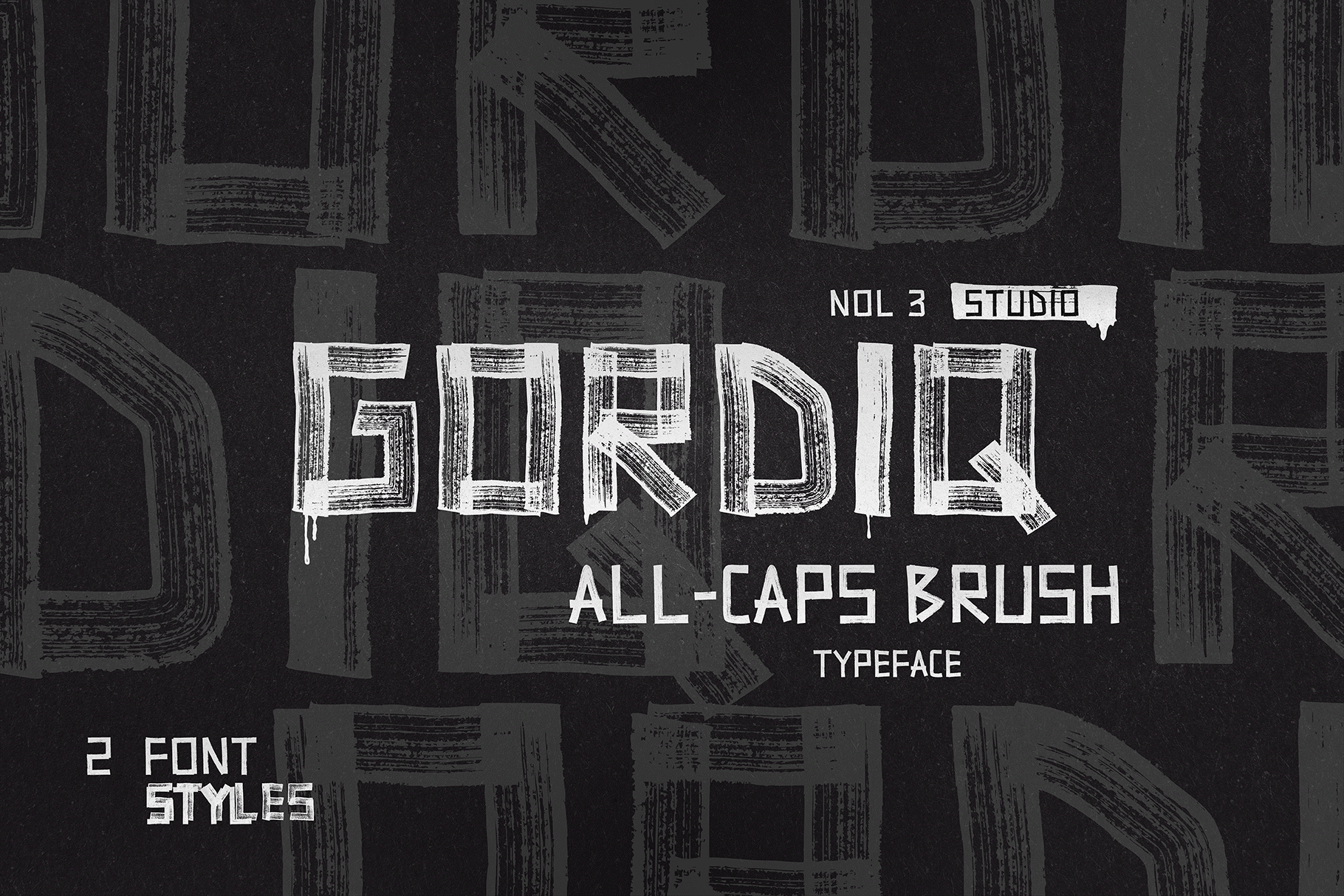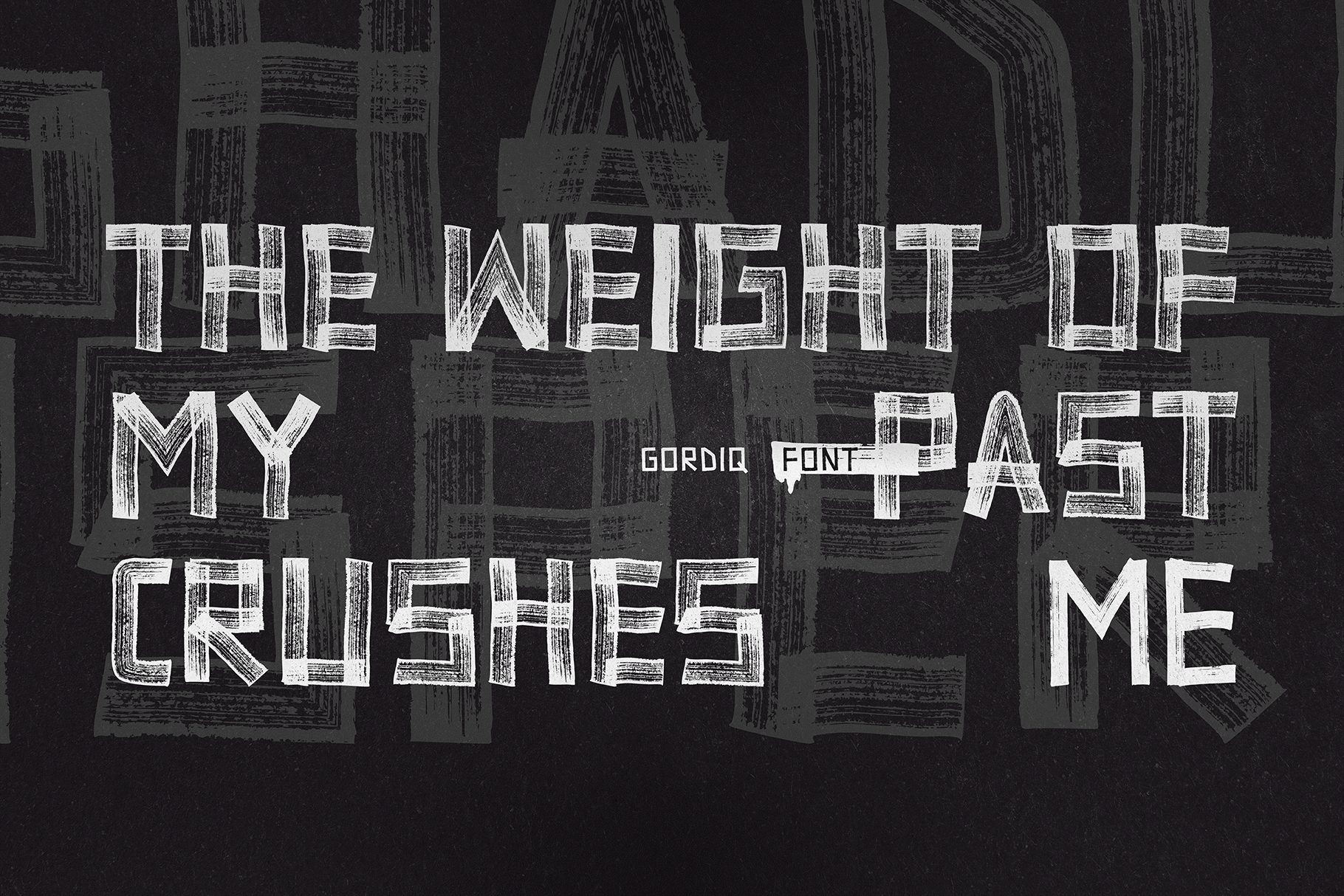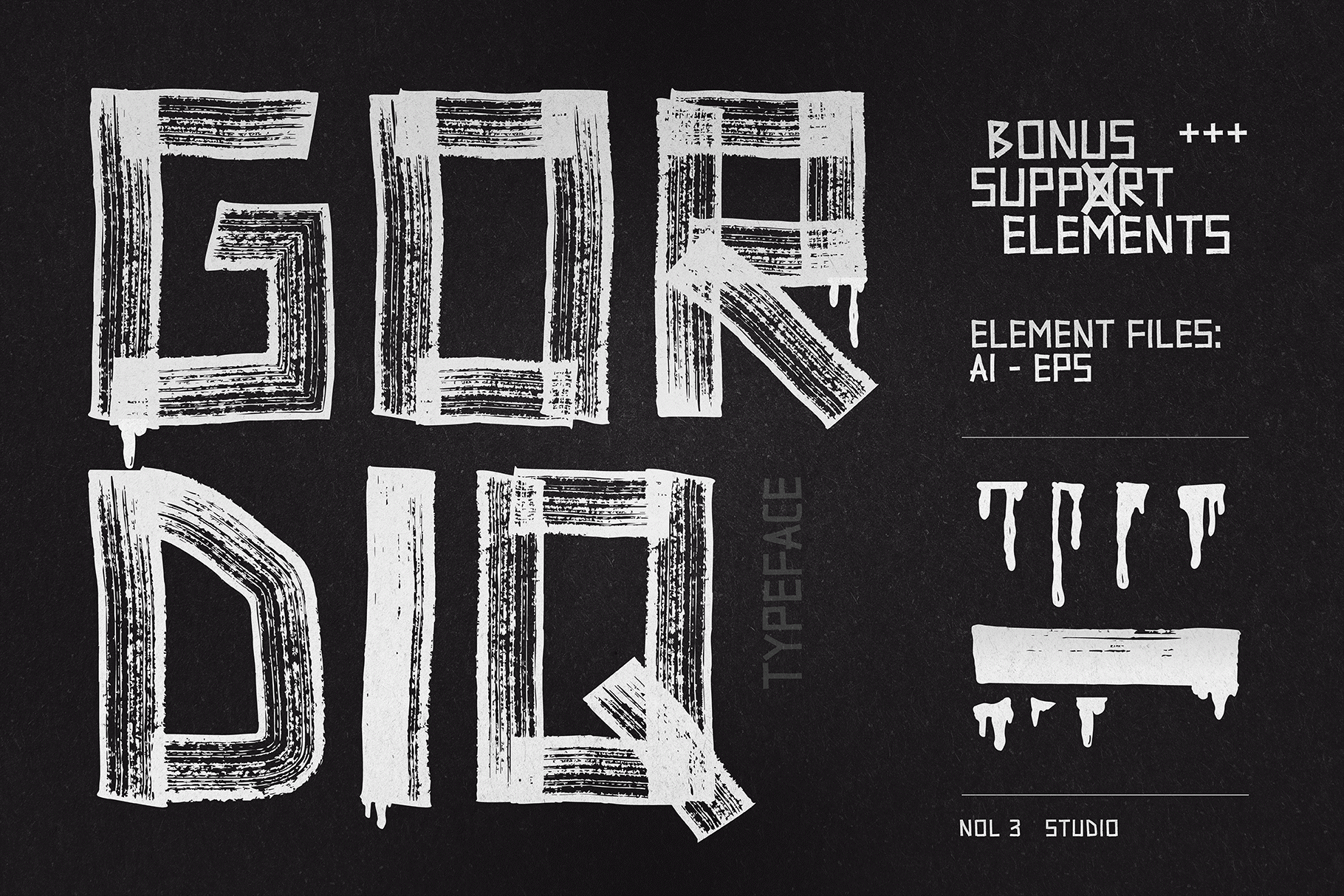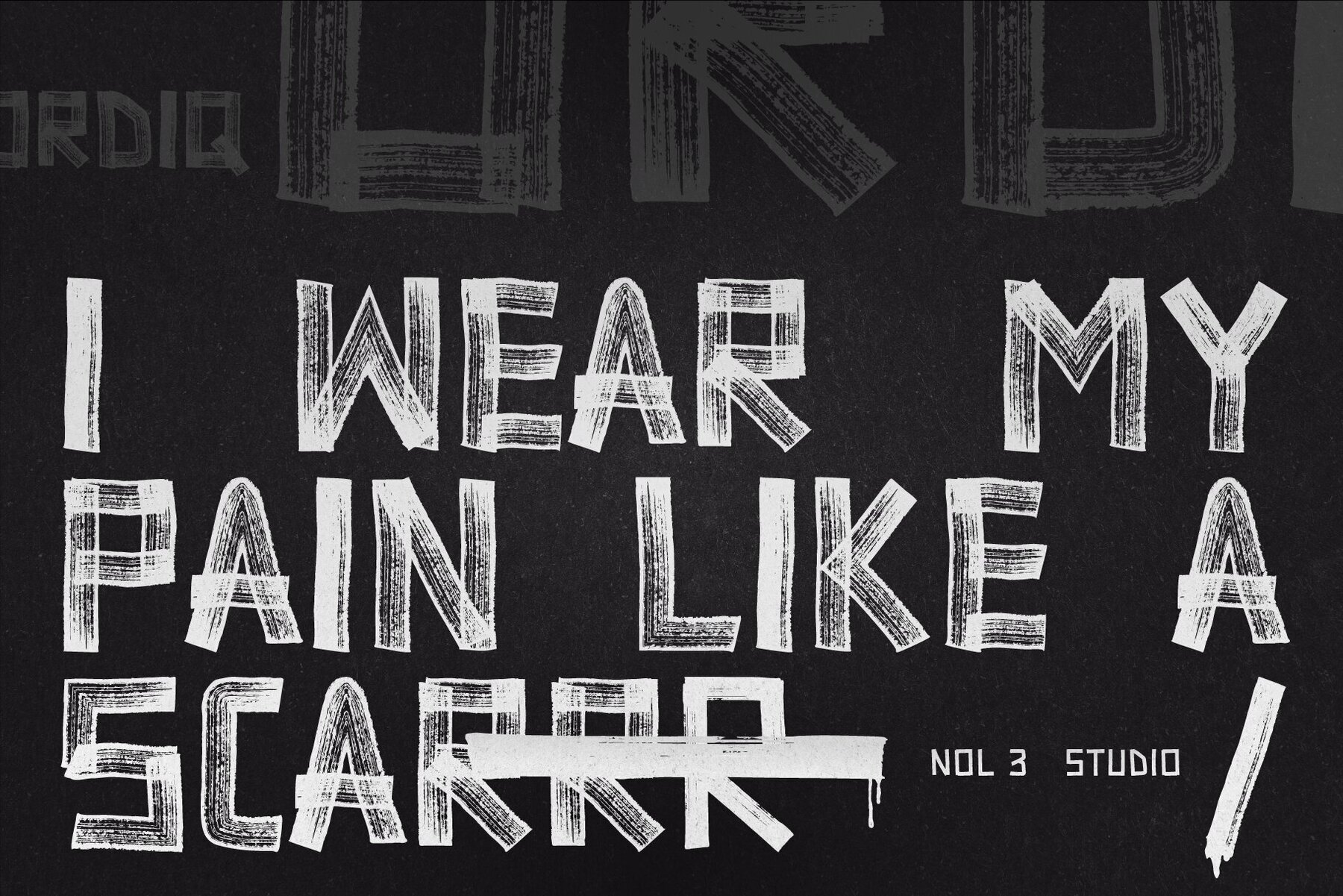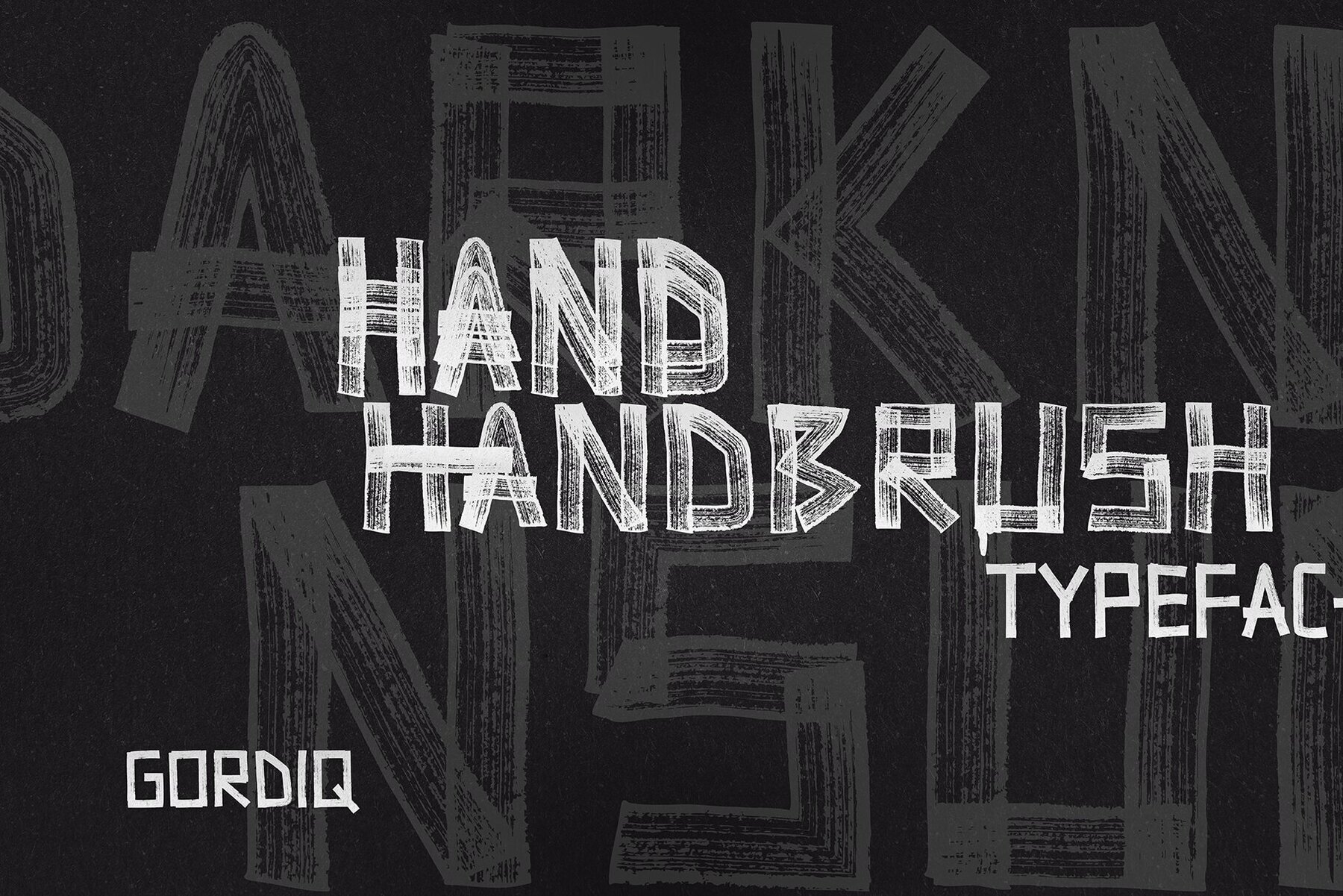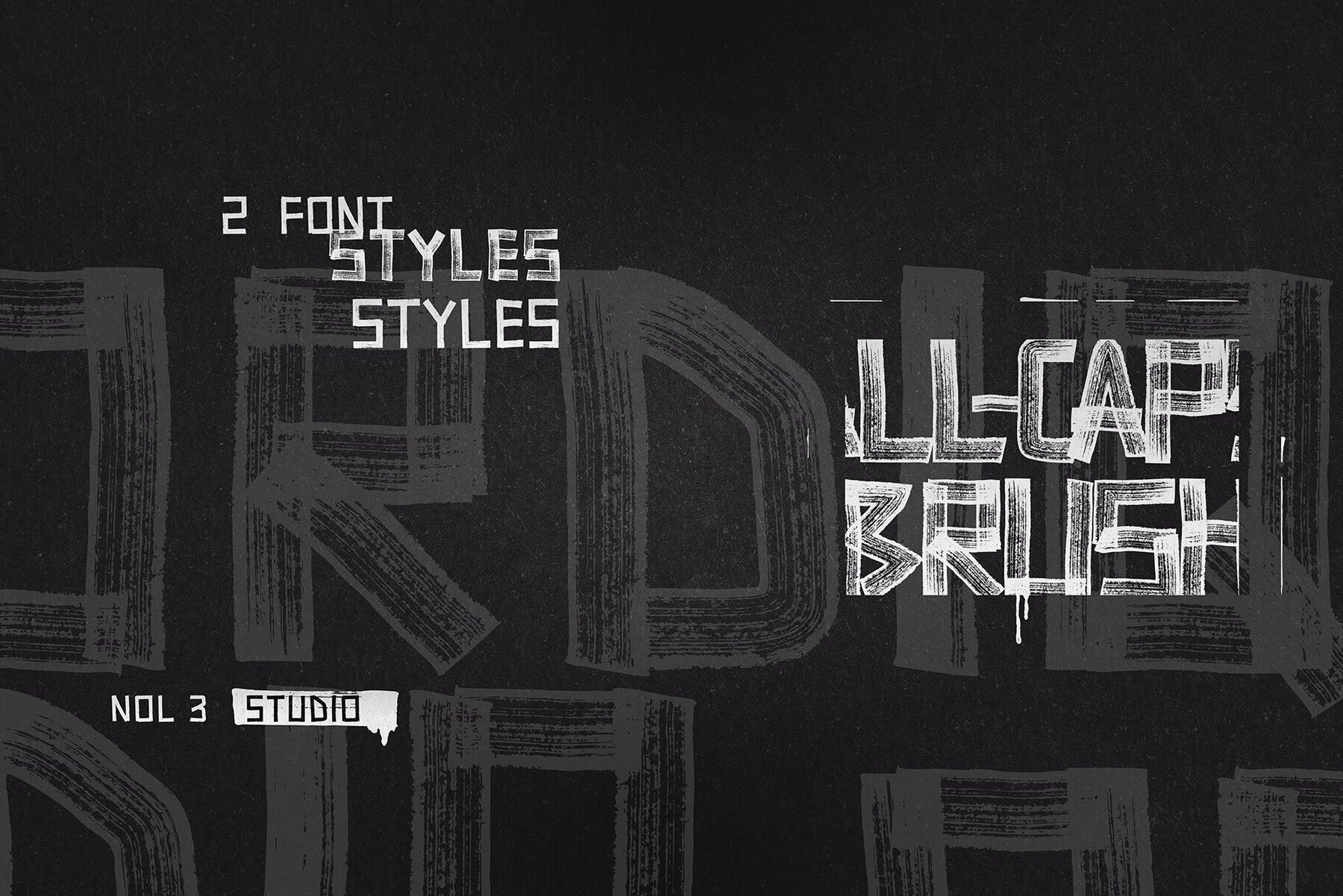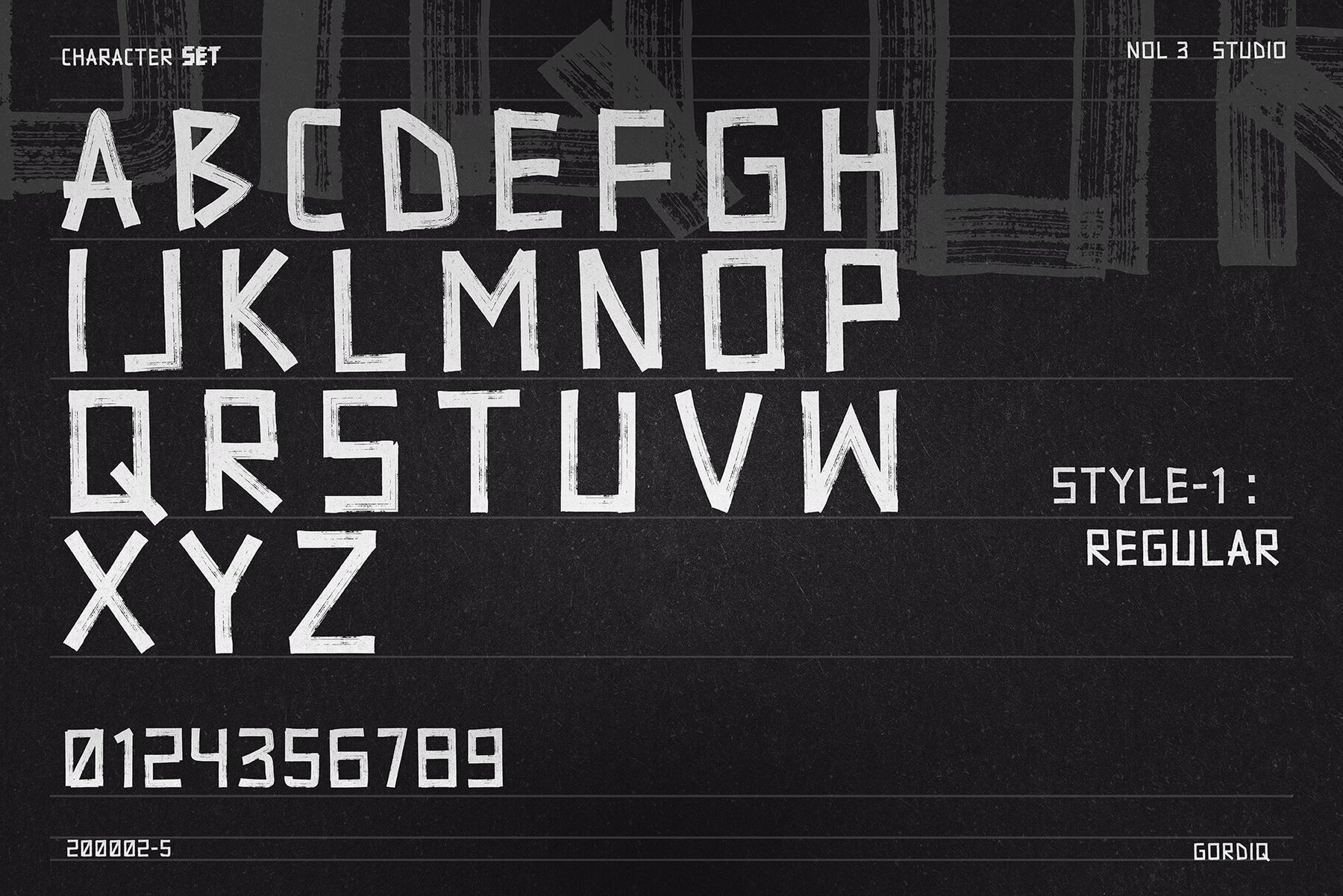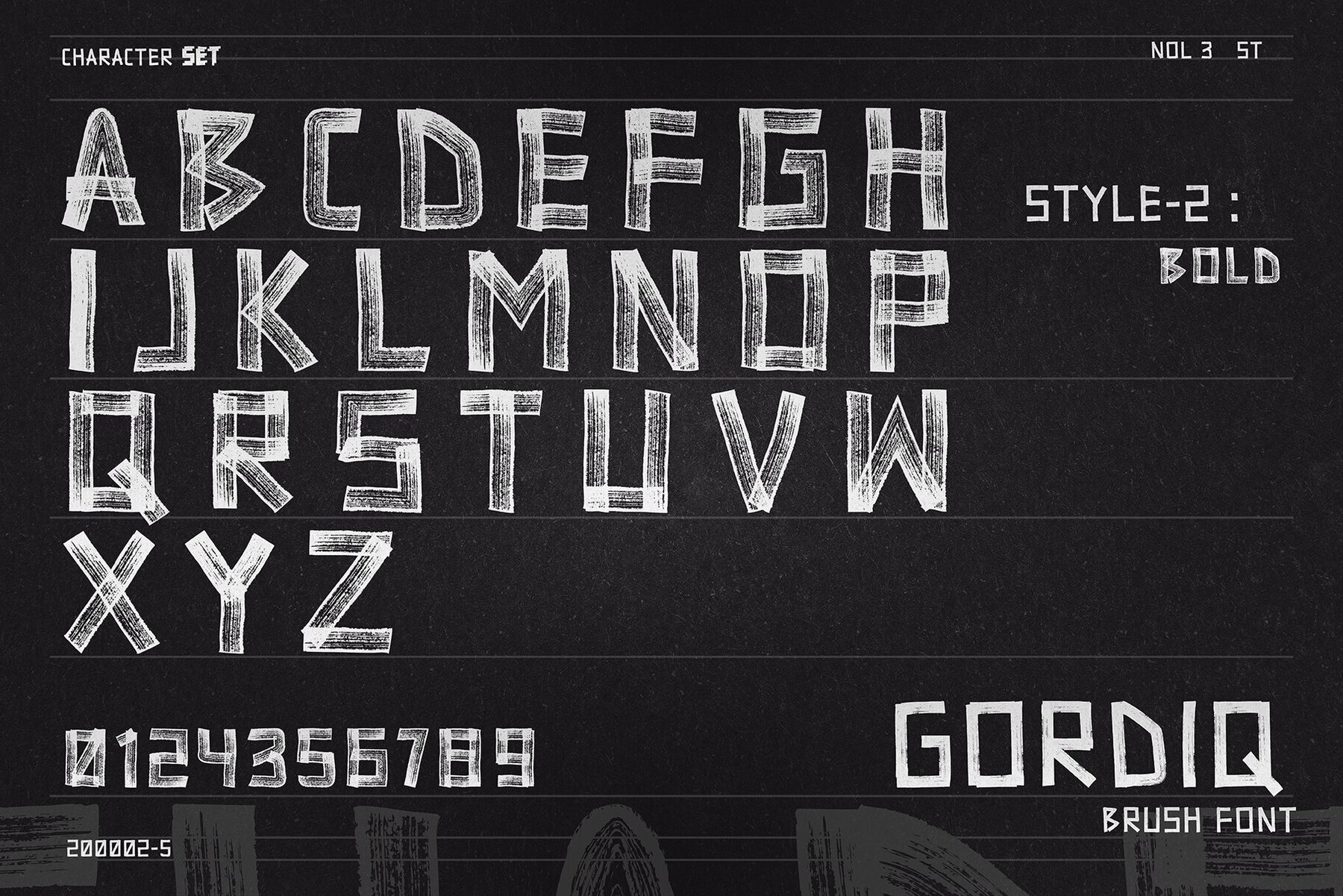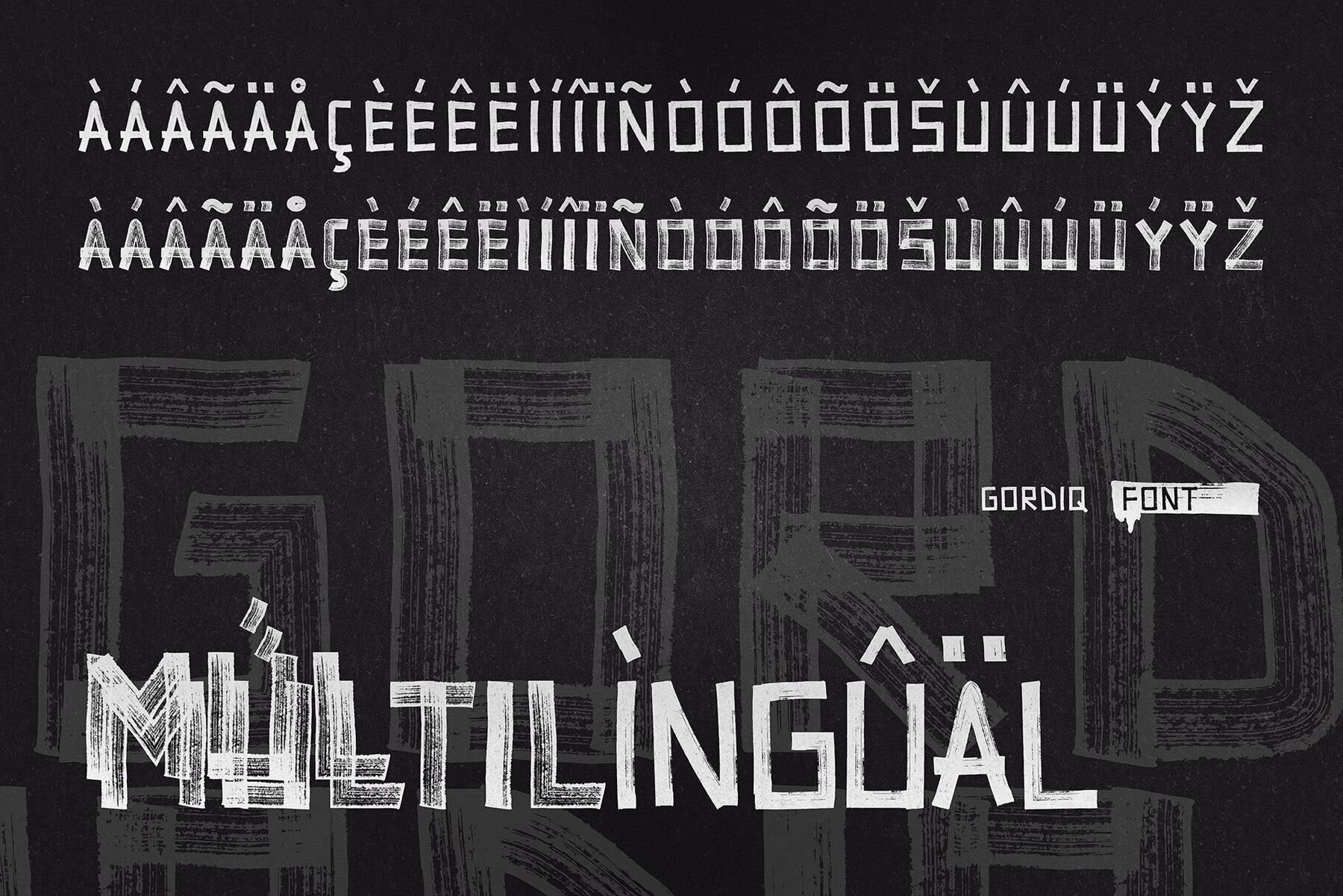
Gordiq Font
Capture the strikingly raw essence of this unique handwritten text style with Gordiq, a texture roll-brush handwriting font. Designed to command attention in all caps, it infuses creative projects with remarkable depth and character. From bold brand statements to artistic endeavors, Gordiq, with its regular and bold styles, adds a personal touch that resonates.Gordiq: Allcaps Brush Font with a Distinctive Edge